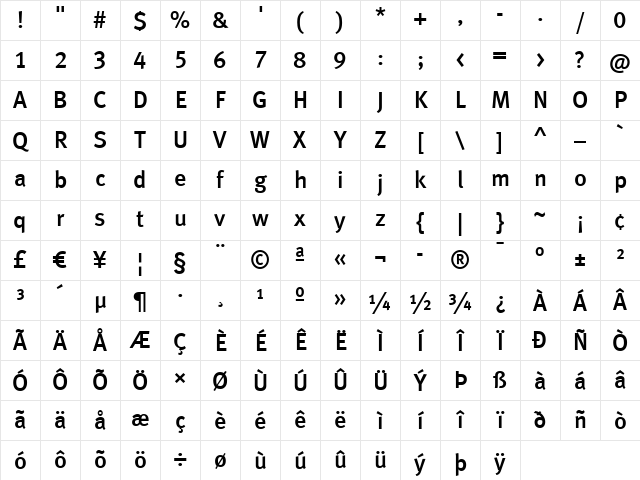
Meta Medium Roman
Style: Medium Roman
Foundry: Erik Spiekermann, published by Fontshop International for the FontFont library
Complete Meta Medium Roman glyph index. Displaying only characters natively supported by Meta Medium Roman font.
Design Context for Meta
Meta is a composed and adaptable typeface that performs quietly and consistently across a wide range of design contexts.
Who designed the Meta Medium Roman font?
This font was published by Erik Spiekermann, published by Fontshop International for the FontFont library. Check the technical specs section for copyright and designer details.